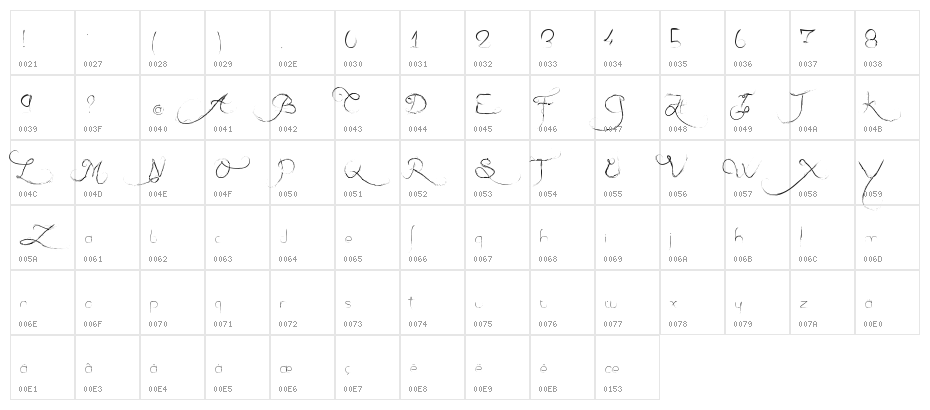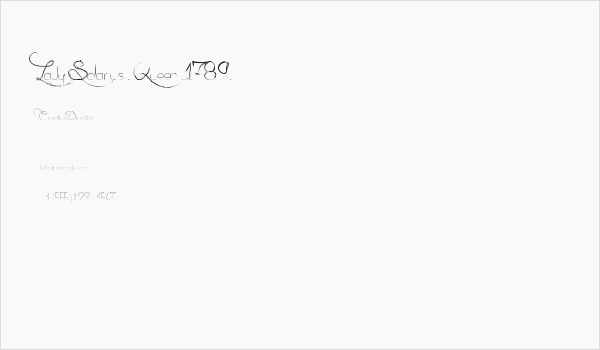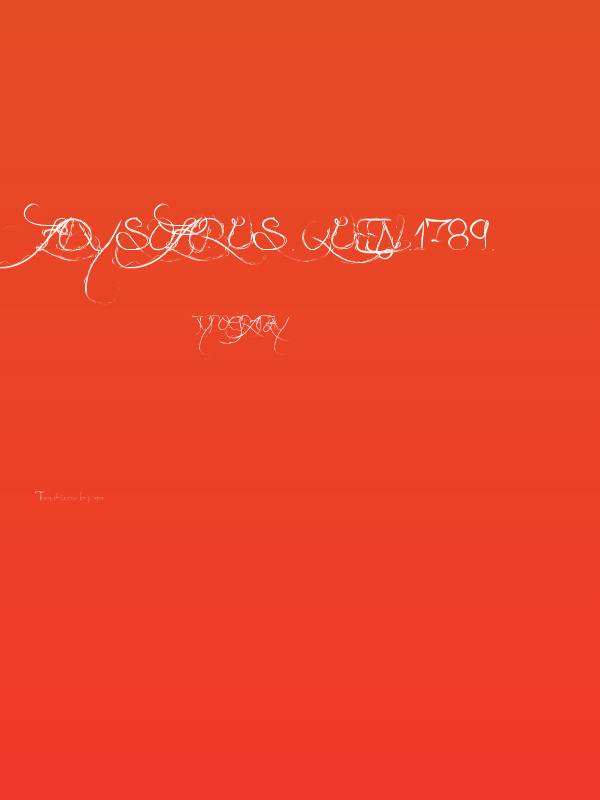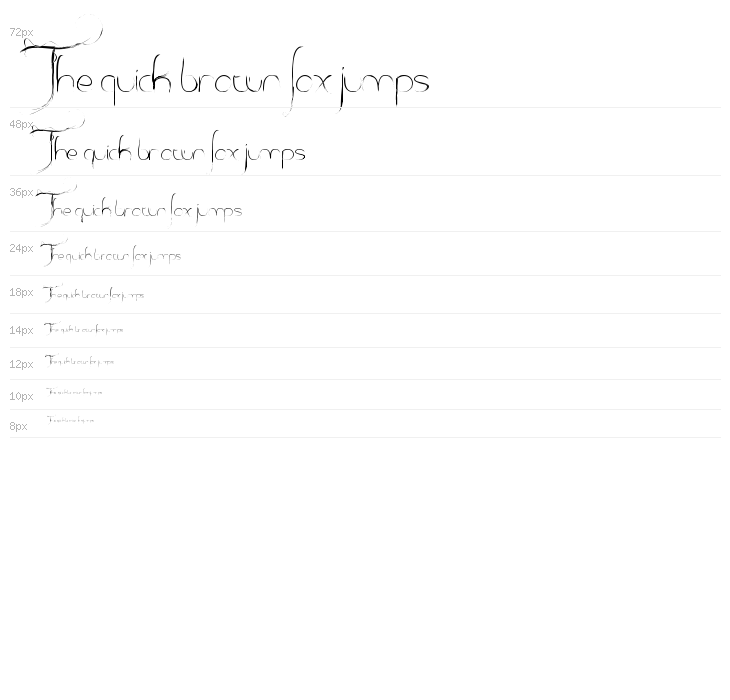
Lady Solarus . Queen .1789. Font
Lady Solarus . Queen .1789. Description
This font features an elaborate and artistic script style, characterized by its intricate swirls and flourishes. The uppercase letters are particularly ornate, with each character exhibiting unique loops and curves that give it a highly decorative appearance. The lowercase letters maintain a more subdued elegance, with gentle curves and a slightly more restrained design. The numerals are consistent with the overall style, featuring subtle embellishments that enhance their visual appeal. The special characters are similarly styled, integrating seamlessly with the rest of the font. This font's delicate and sophisticated design makes it ideal for projects that require a touch of elegance and creativity.
Use CaseLogos, Invitations, Artistic Projects
Proposed ProjectsIdeal for wedding invitations, luxury branding, artistic posters, and elegant stationery.